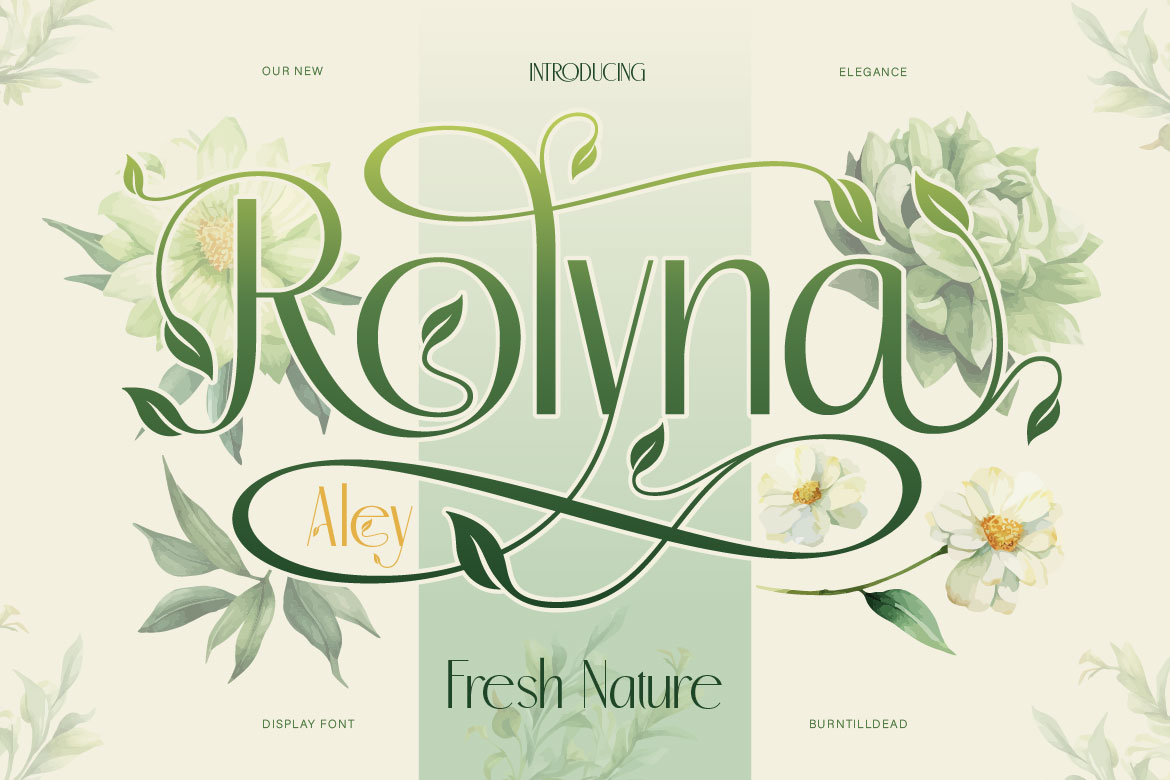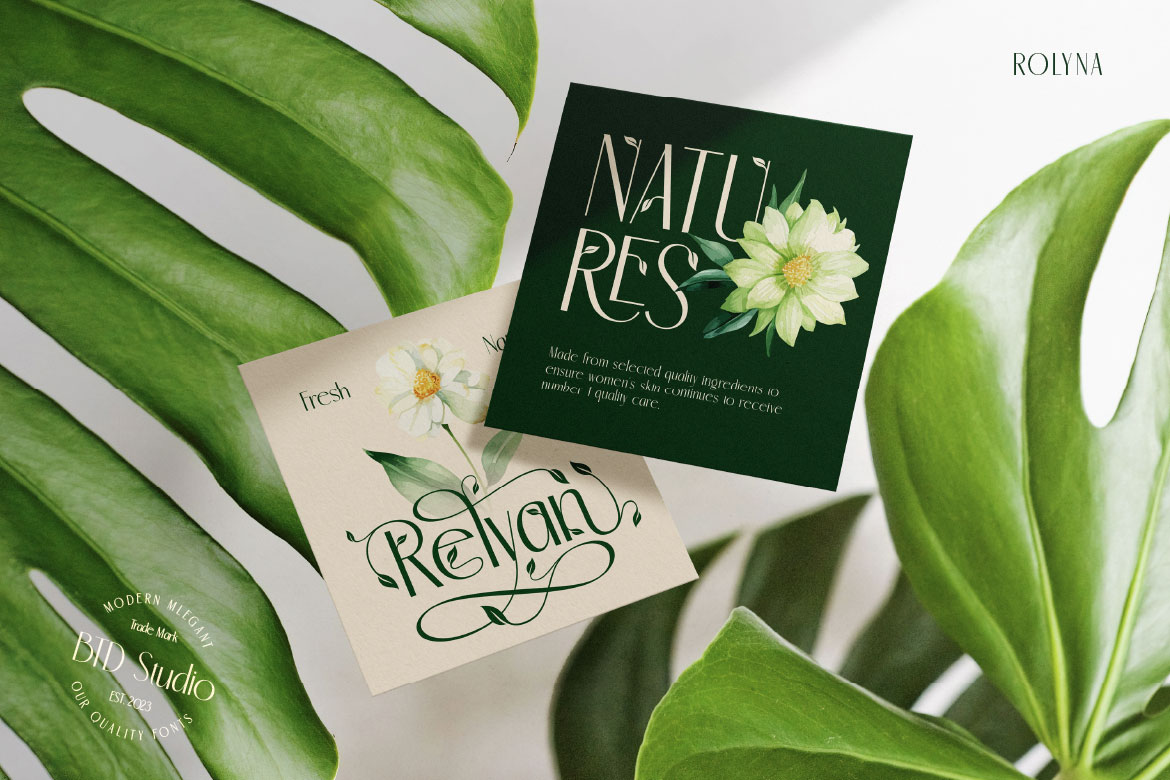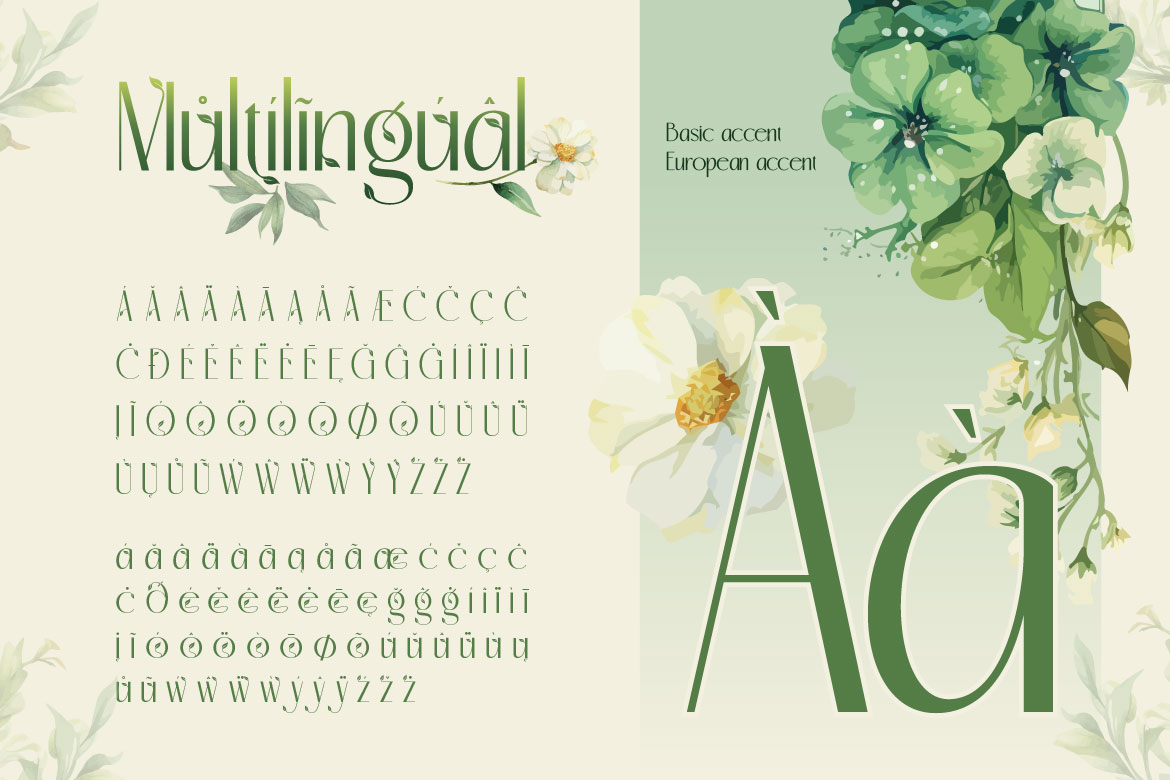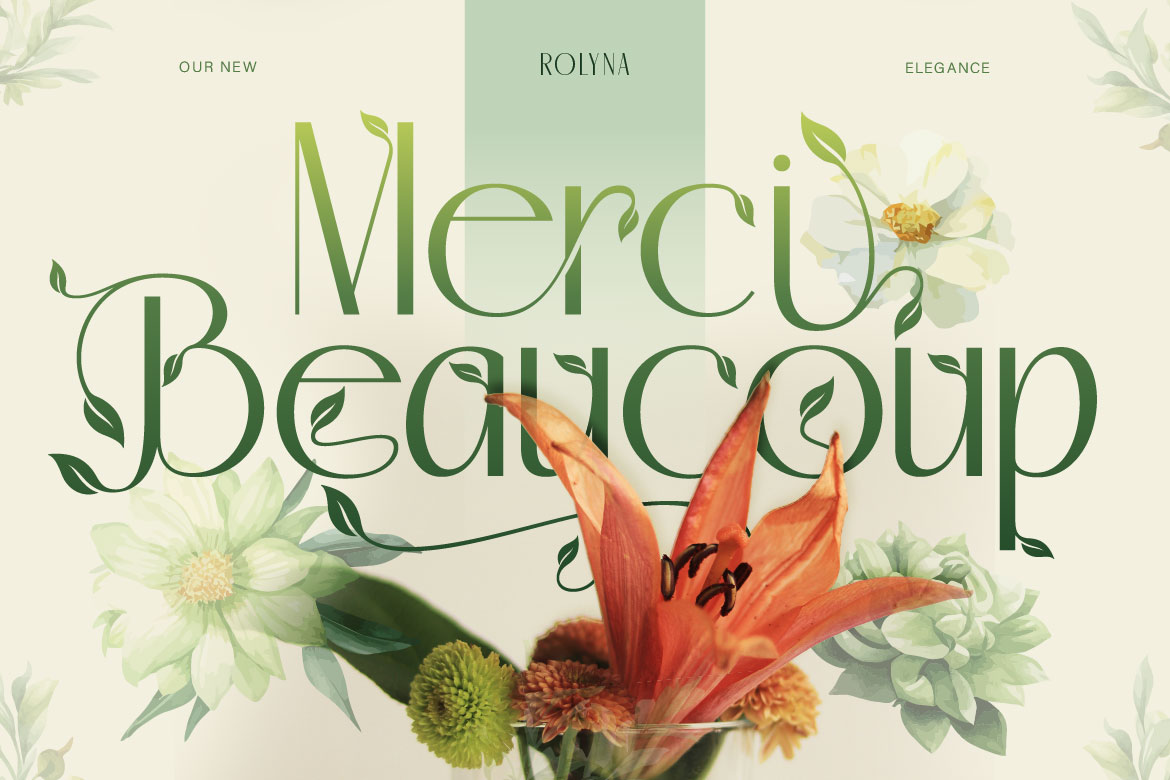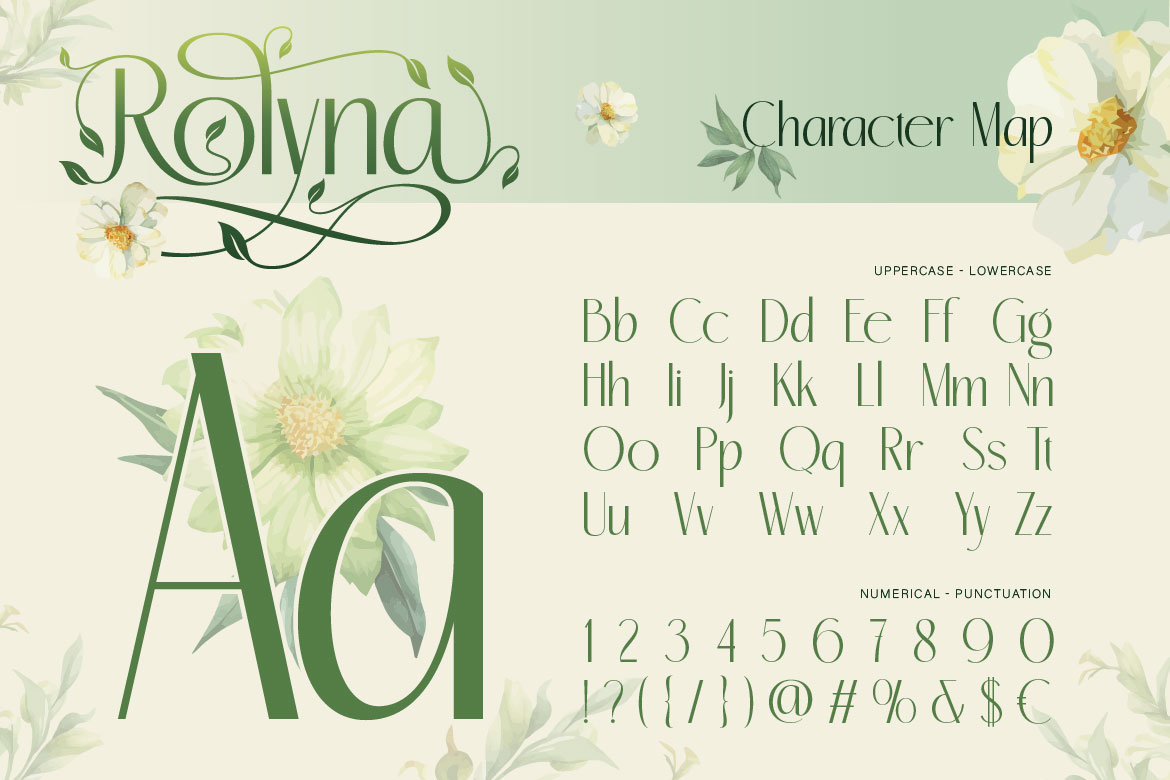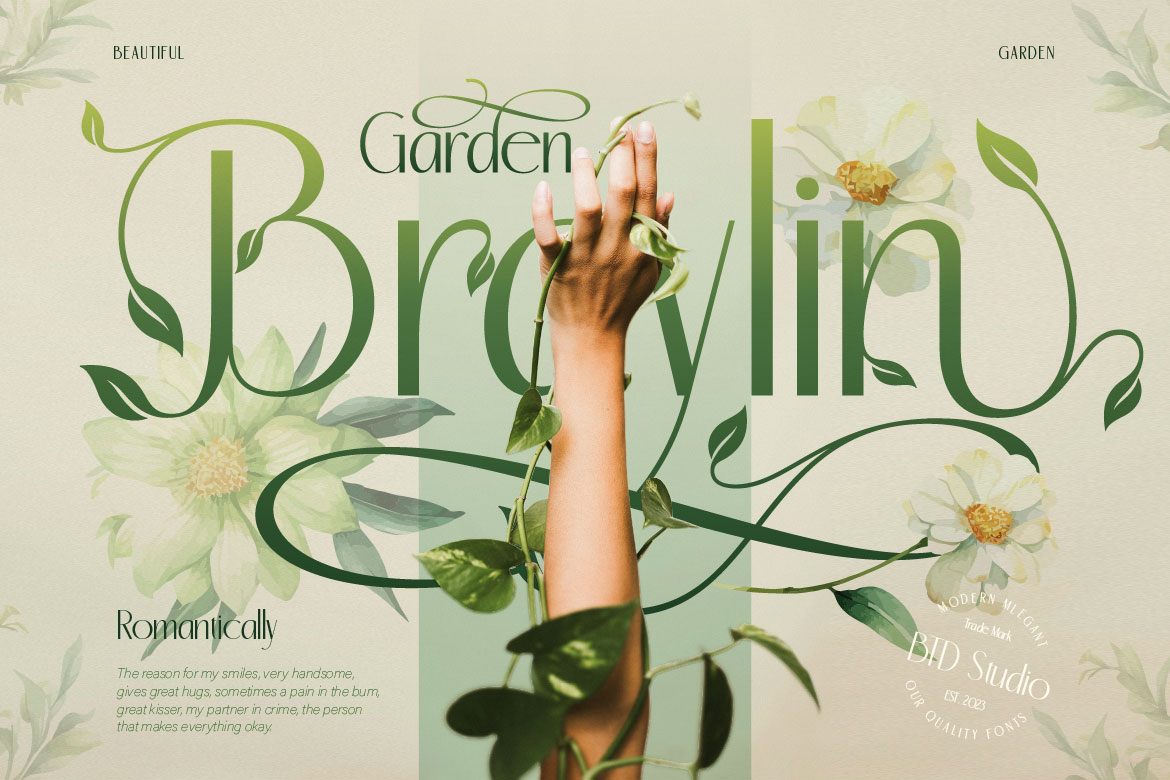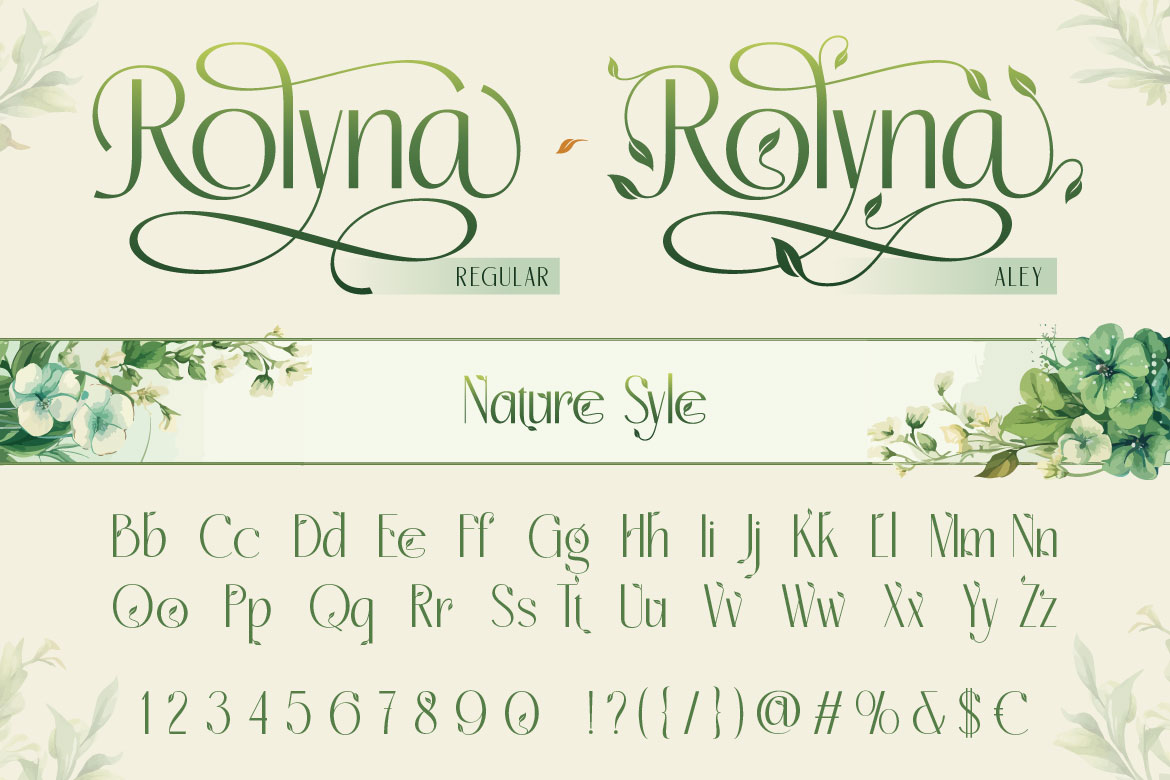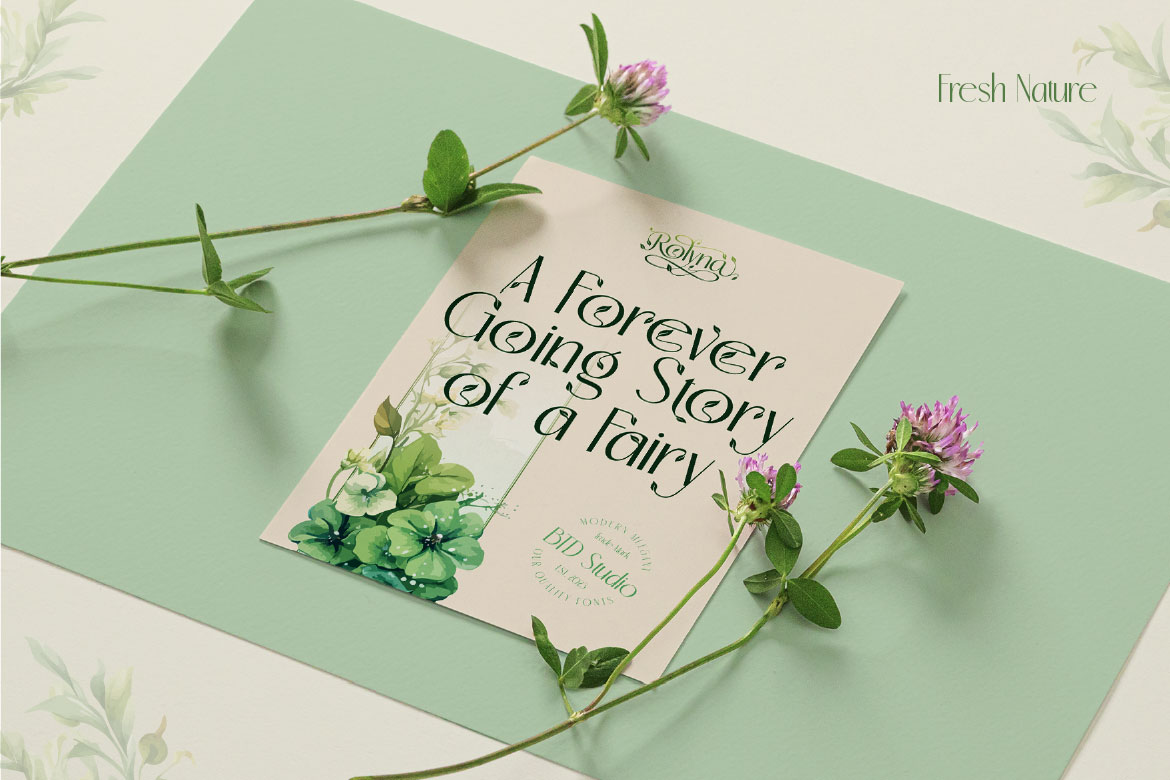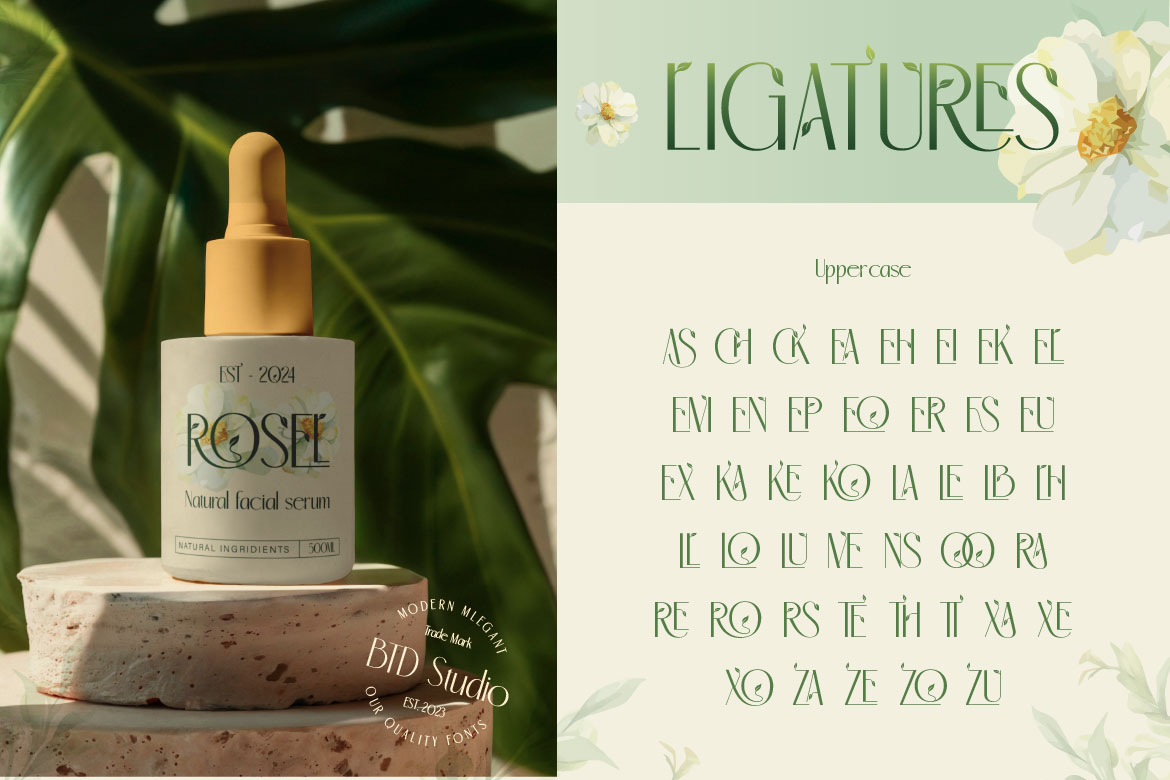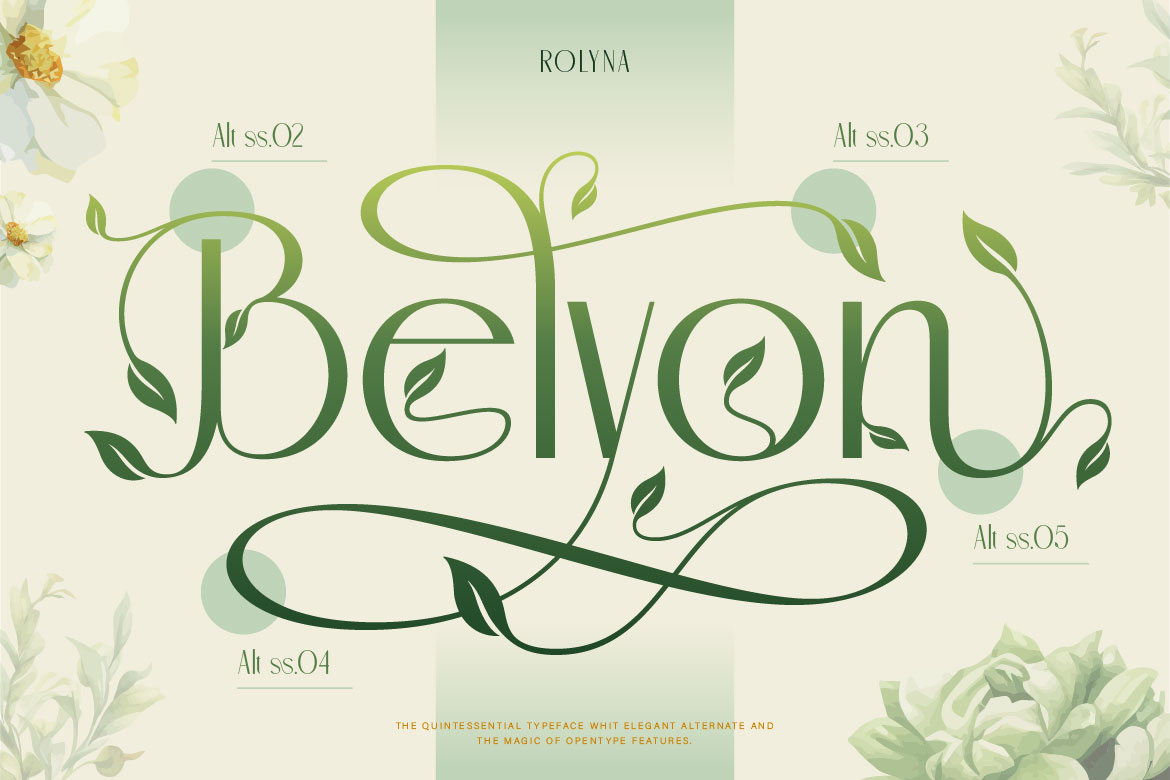
Say hello to Rolyna — a fresh, nature-inspired display font that combines modern sophistication with elegant botanical charm. Rolyna comes in two distinct styles: Regular for a clean look, and Aley with decorative swashes and leafy details, perfect for those who love a whimsical, organic feel. Its tall letterforms and nature-inspired flourishes create a unique visual identity that feels both graceful and playful, like vines growing on a fairytale garden gate. Rolyna is ideal for skincare and botanical logo designs, herbal packaging, eco-friendly branding, Wedding invitations with a garden or rustic theme, romantic editorial titles, fashion layouts, greeting cards, journals, and many other creative projects.